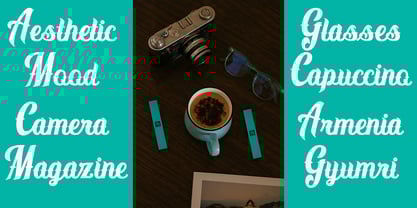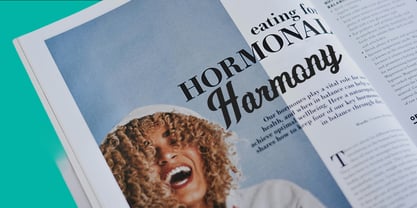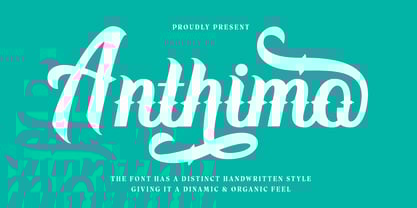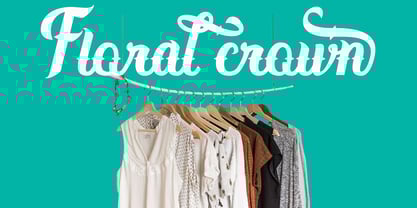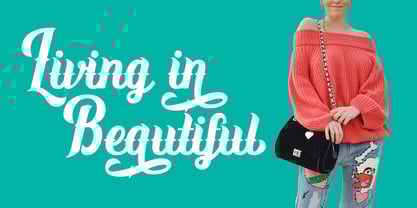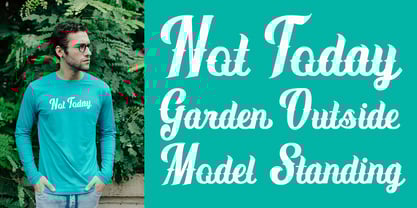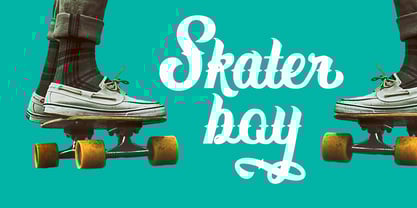
Anthimo
by Aqeela Studio
The Anthimo Font Family was designed by Muhammad Nasir and published by Aqeela Studio. Anthimo contains 1 styles.
Anthimo is a bold and expressive script font with a strong vintage influence. It features thick, flowing strokes with dramatic flourishes and a touch of gothic flair. The font conveys a sense of energy and personality, making it suitable for designs that demand attention.
Designers: Muhammad Nasir
Publisher: Aqeela Studio
Foundry: Aqeela Studio
Design Owner: Aqeela Studio